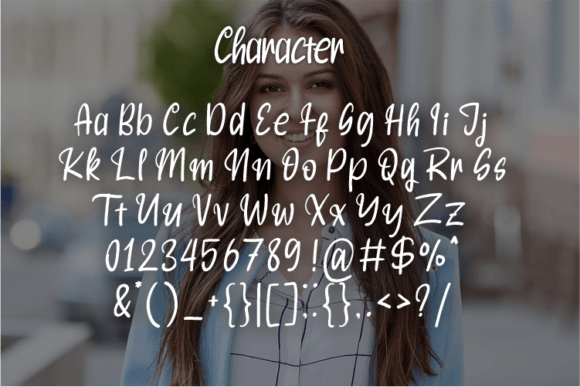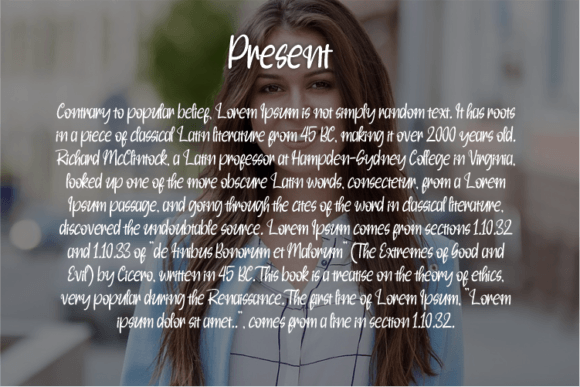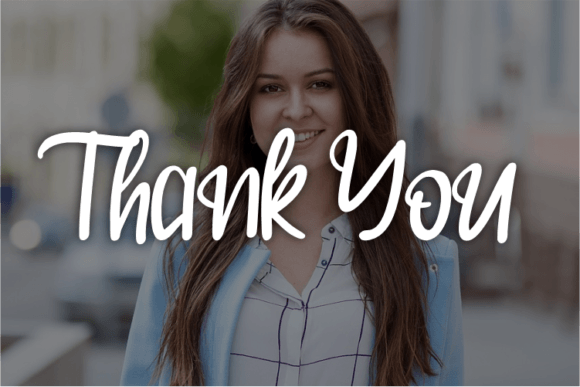
Introduction to Karisma Font
Have you ever found yourself staring at a blank canvas, struggling to bring your creative vision to life? The blank page can be intimidating, but sometimes all it takes is the right design resource to spark inspiration. For designers, discovering a new font can be a game-changer, and that’s exactly what we’re excited to share with you today – the Karisma Font.
This elegant script typeface boasts a simple yet modern look that’s perfect for creating a lasting impression. Whether you’re designing a luxurious logo, crafting a book title, or working on a high-end fashion brand, the Karisma Font is sure to elevate your project with its sophistication and style. With its transparent background and high-quality design, this free download is a valuable addition to any designer’s toolkit.
As a valuable design resource, the Karisma Font offers endless possibilities for creative projects, from magazine layouts to clothing designs. With its versatility and timeless appeal, it’s no wonder why designers are turning to the Karisma Font for their next big project.
Key Features of Karisma Font
- High-quality, free font ideal for creative projects and design resources.
- Transparent background, allowing for seamless integration with any design.
- Designed to provide a unique, stylish aesthetic for various design applications.
Honest Review: Karisma Font
I recently had the chance to work with the Karisma Font, and I must say, it’s a great addition to any designer’s toolkit. The font is free to download, which is always a plus for me. The quality is high, with clean lines and a professional feel.
One of the things I like about Karisma Font is its versatility. It’s perfect for any creative project, from logos to business cards, and even web design. The font’s modern design makes it a great choice for projects that require a sleek and contemporary look.
- Transparent background, making it easy to use on any design
- Perfect for creative projects
- May not be suitable for projects that require a more traditional or vintage feel
- Limited character set
Overall, I’m impressed with the Karisma Font. It’s a great resource for designers looking for a high-quality, modern font. While it may have some limitations, it’s definitely worth checking out.
The Karisma Font is suitable for a wide range of creative projects, including graphic design, digital art, and branding materials. Its unique design and high-quality features make it an excellent choice for designers and artists seeking a distinctive look for their work.
Q: Is the Karisma Font suitable for high-quality print projects?
Yes, the Karisma Font is designed to meet high standards of quality, making it suitable for a wide range of print projects, from business cards to large-scale posters. The font’s crisp, clean lines and precise typography ensure that your creative project will look professional and polished.